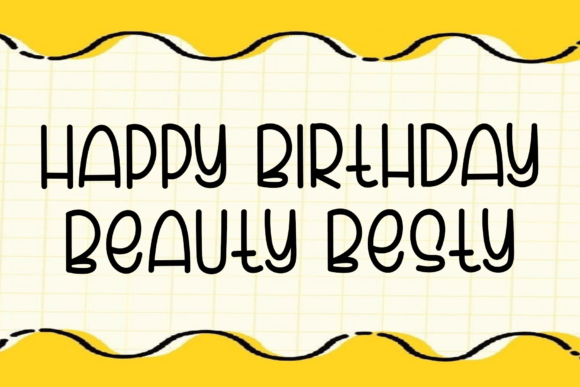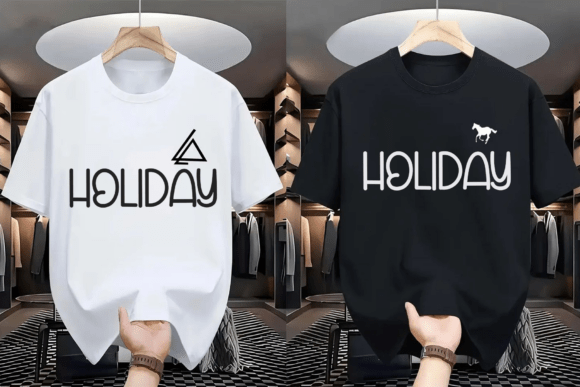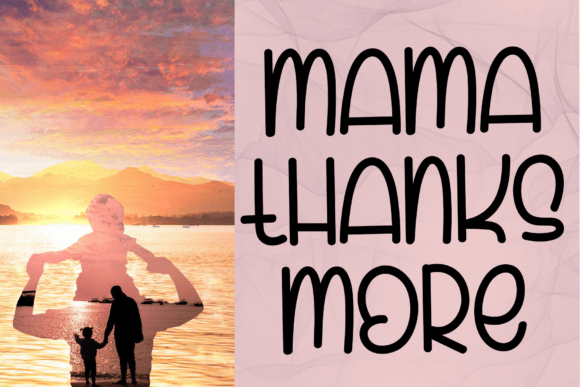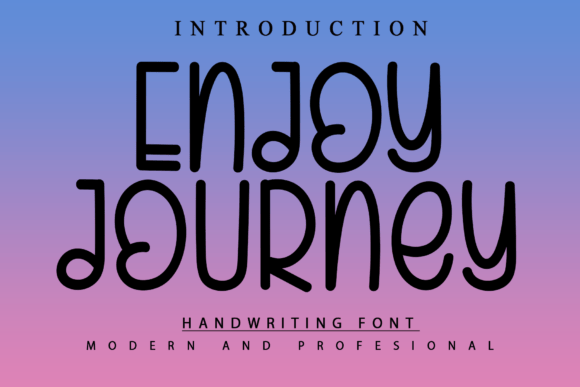
Enjoy Journey Font: Elevate Your Designs with a Modern Handwriting Style
Are you tired of using the same old fonts in your creative projects? Look no further than Enjoy Journey, a stylish and expressive handwriting font that’s perfect for designers and crafters looking to add a personal touch to their work. With its unique blend of modern and handwritten elements, Enjoy Journey is sure to elevate your designs and capture the spirit of exploration and self-expression.
A Modern Take on Handwriting
Enjoy Journey is a modern handwriting display font that combines the friendliness of handwritten script with a contemporary flair. Its tall, rounded letterforms and unique geometric rhythm give it a distinctive look that’s both stylish and approachable. Whether you’re designing for digital content or print, Enjoy Journey adds a modern yet heartfelt touch to every word.
Enjoy Journey is perfectly suited for a wide range of creative projects, including travel quotes, social media graphics, brand identity, posters, and lifestyle merchandise. Its clean lines and quirky alternates create a sense of movement and optimism, making it ideal for designs that need to capture a sense of adventure and exploration.
Key Features of Enjoy Journey
- Modern handwriting style: Enjoy Journey boasts a fresh and contemporary handwriting style that’s perfect for designers looking to add a personal touch to their work.
- Tall, rounded letterforms: The font’s tall, rounded letterforms give it a distinctive look that’s both stylish and approachable.
- Unique geometric rhythm: Enjoy Journey’s unique geometric rhythm adds a touch of sophistication and elegance to its overall design.
- Clean lines and quirky alternates: The font’s clean lines and quirky alternates create a sense of movement and optimism, making it perfect for designs that need to capture a sense of adventure and exploration.
Why Choose Enjoy Journey?
There are many reasons why designers and crafters should choose Enjoy Journey for their creative projects. Here are just a few:
- Versatility: Enjoy Journey is a versatile font that can be used for a wide range of creative projects, from digital content to print materials.
- Ease of use: The font is easy to read and works well in a variety of contexts, making it perfect for designers who need to create a cohesive brand identity.
- Uniqueness: Enjoy Journey’s unique blend of modern and handwritten elements sets it apart from other fonts, making it perfect for designers who want to add a personal touch to their work.
How to Use Enjoy Journey in Your Designs
Using Enjoy Journey in your designs is easy. Here are a few tips to get you started:
- Pair it with other fonts: Enjoy Journey works well when paired with other fonts, so don’t be afraid to experiment with different combinations.
- Use it for headings and titles: The font’s bold, expressive style makes it perfect for headings and titles.
- Add a personal touch: Enjoy Journey’s handwritten style adds a personal touch to any design, making it perfect for designers who want to create a unique and memorable brand identity.
| Font Style | Handwriting Display Font |